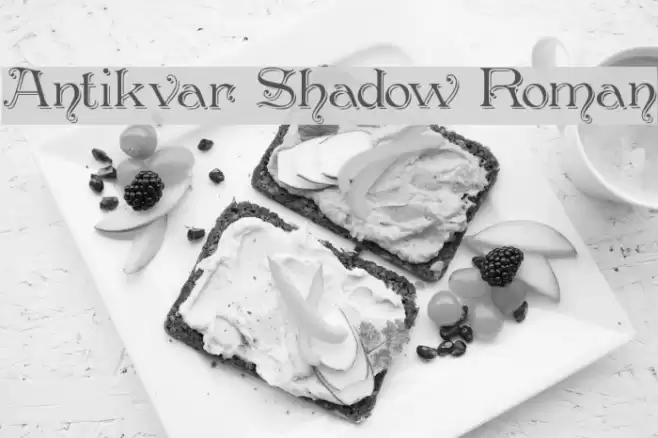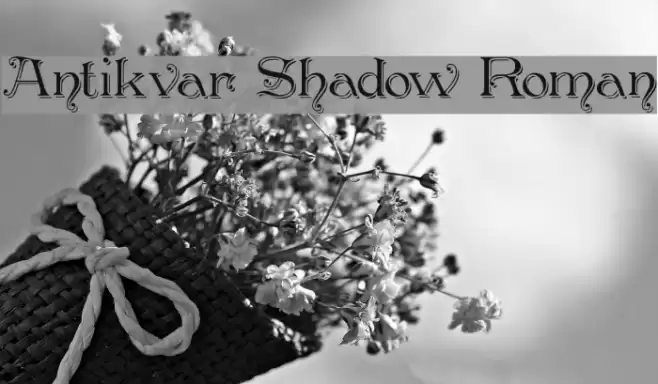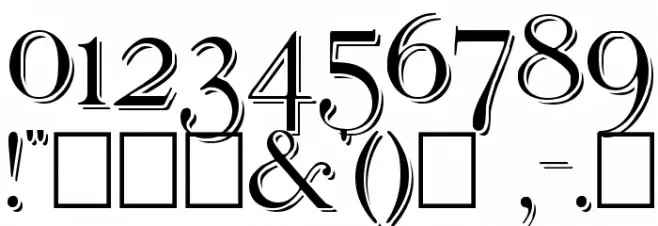
Antikvar Shadow Roman Font
Antikvar Shadow Roman Description
This font features a distinctive shadow effect that gives each character a three-dimensional appearance. The serif style is ornate, with intricate detailing on the strokes, adding a touch of elegance and sophistication. The uppercase letters are bold and commanding, while the lowercase letters maintain a consistent style with slightly more curves. The numbers are clear and well-defined, matching the overall aesthetic of the alphabet. Special characters are included, maintaining the same decorative style. This font is ideal for projects that require a classic yet eye-catching look.
An ornate serif font with a shadow effect, offering a classic and elegant style from Uncategorized fonts.
- Proposed Projects: Ideal for vintage-themed designs, book covers, posters, and branding that requires a classic touch.
- Contrast: High
- Overall Style: Vintage
- Use Case: Headlines, Logos, Decorative text